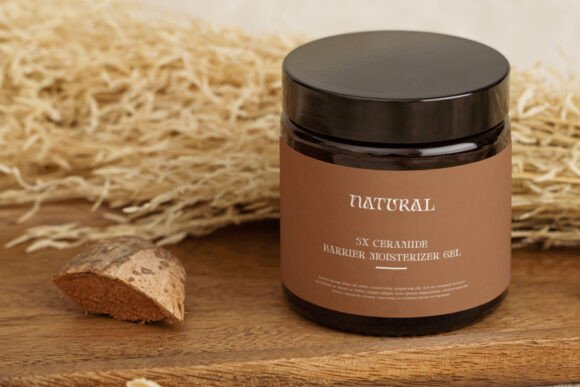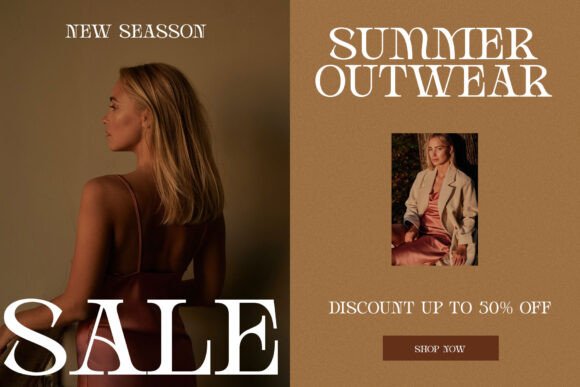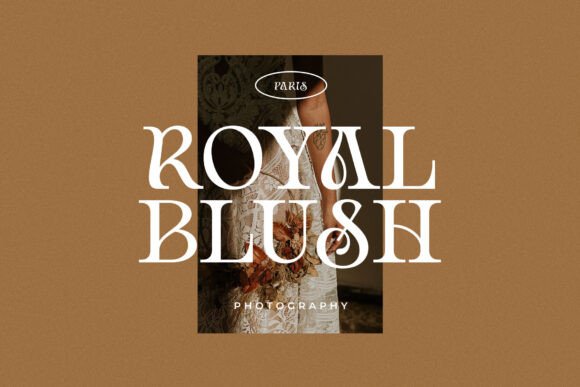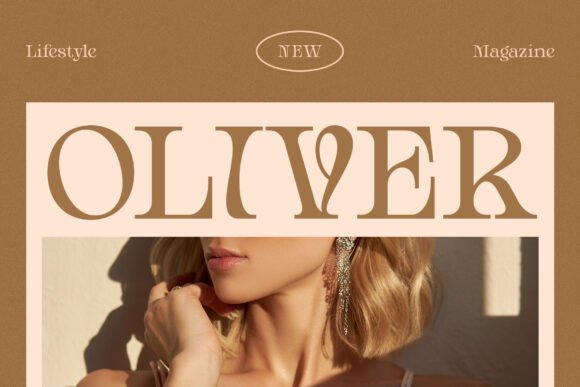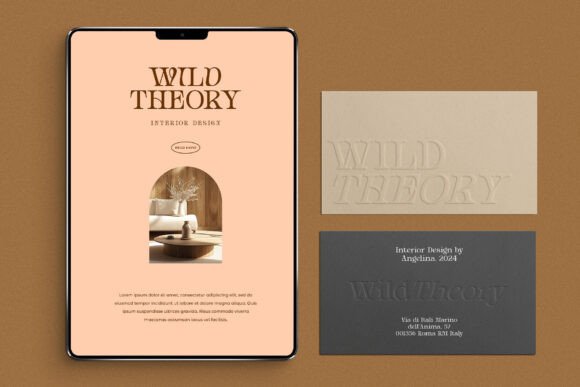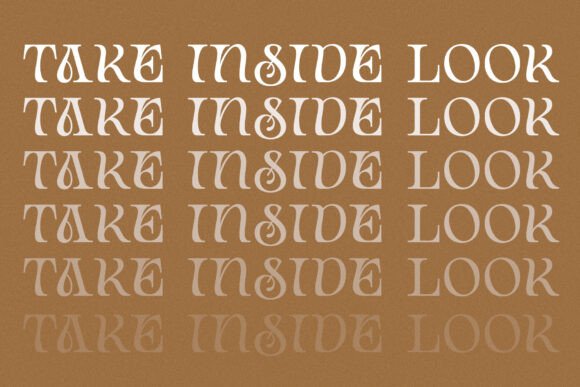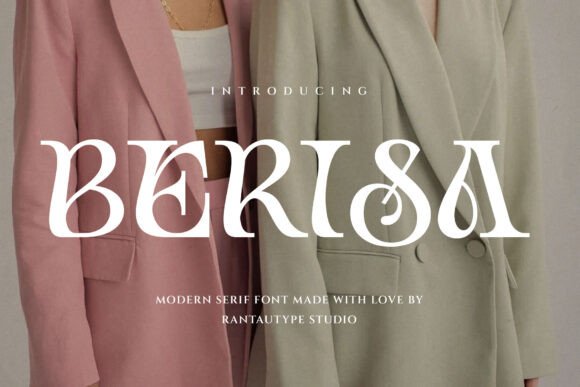
The Berisa Font: A Designer’s Dream Come True
I’ll never forget the time I was working on a wedding invitation project, and I just couldn’t find the right font to make it feel elegant and sophisticated. My client was specific about the style they wanted – something that would make their special day feel like a fairytale. That’s when I stumbled upon the Berisa font, and let me tell you, it was love at first sight! 💕
An Honest Review of Berisa Font
What I Love About Berisa ✨
- 💯 Elegant and bold serif style that’s perfect for making a statement
- 🎨 Incredibly versatile – use it for wedding invitations, stationery art, social media posts, and more!
- 👀 Unique character that sets it apart from other serif fonts
- 💻 Works beautifully in both digital and print formats
- 👍 Easy to read, even in smaller sizes
While Berisa is an amazing font, there are a few things to keep in mind:
- 🤔 Limited availability of certain characters – make sure to check the font’s capabilities before using it for a project
- ⚠️ May not work well with very short or very long texts – use it for headlines, titles, or short paragraphs for maximum impact
The Story Behind Berisa Font
Berisa font was designed with elegance and sophistication in mind. The creator aimed to craft a font that would be both bold and refined, perfect for making a statement in any design. Inspired by classic serif fonts, Berisa brings a fresh and modern twist to the table. Whether you’re designing wedding invitations, stationery art, or social media posts, Berisa is sure to impress.
Q: What makes Berisa font unique?
A: Berisa font stands out with its elegant and bold serif style, making it perfect for designs that require a touch of sophistication.
Q: Is Berisa font suitable for body text?
A: While Berisa is stunning for headlines and titles, it may not be the best choice for long body text. Its bold style may make it harder to read in larger blocks of text.